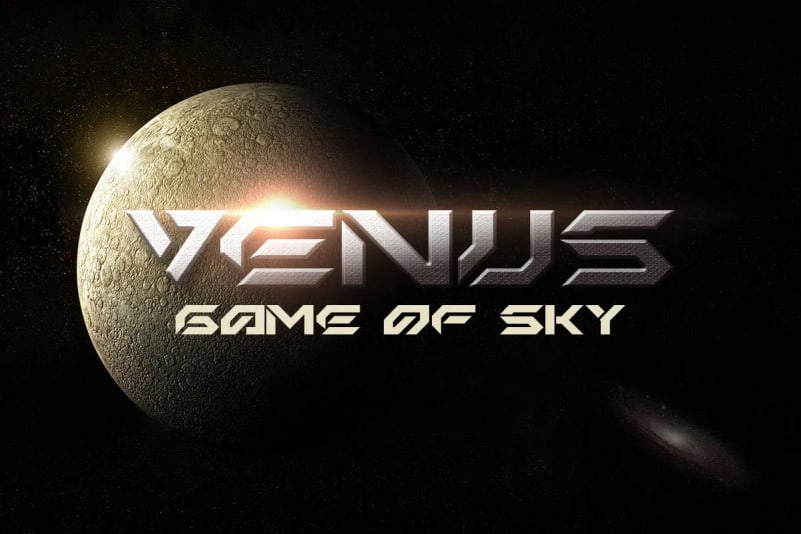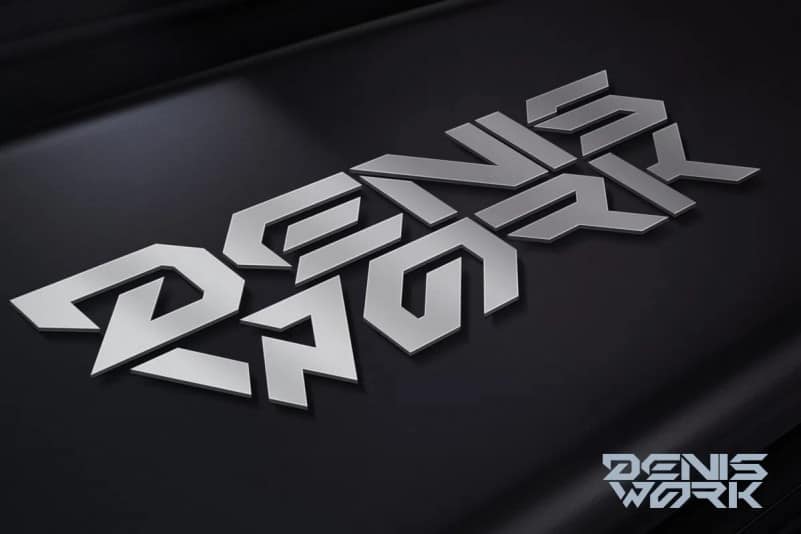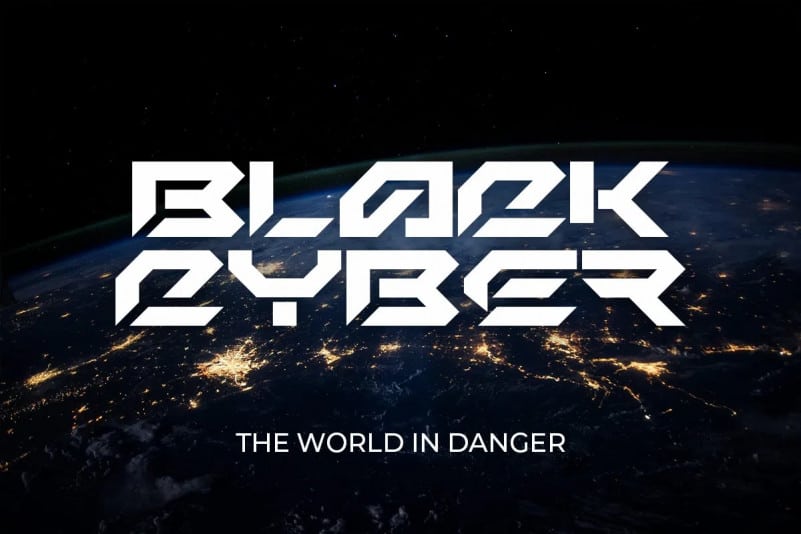
Billetha Display Font presents a powerful technology scifi theme typeface, modern, clean, strong and sleek. Combining retro features with modern, balanced proportions, the letterforms radiate cyberpunk ambience while maintaining legibility. Perfect for your modern futuristic projects.